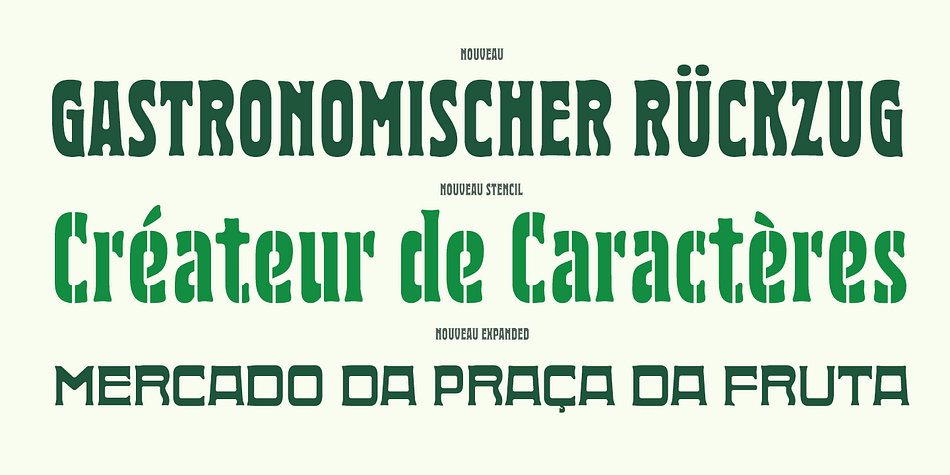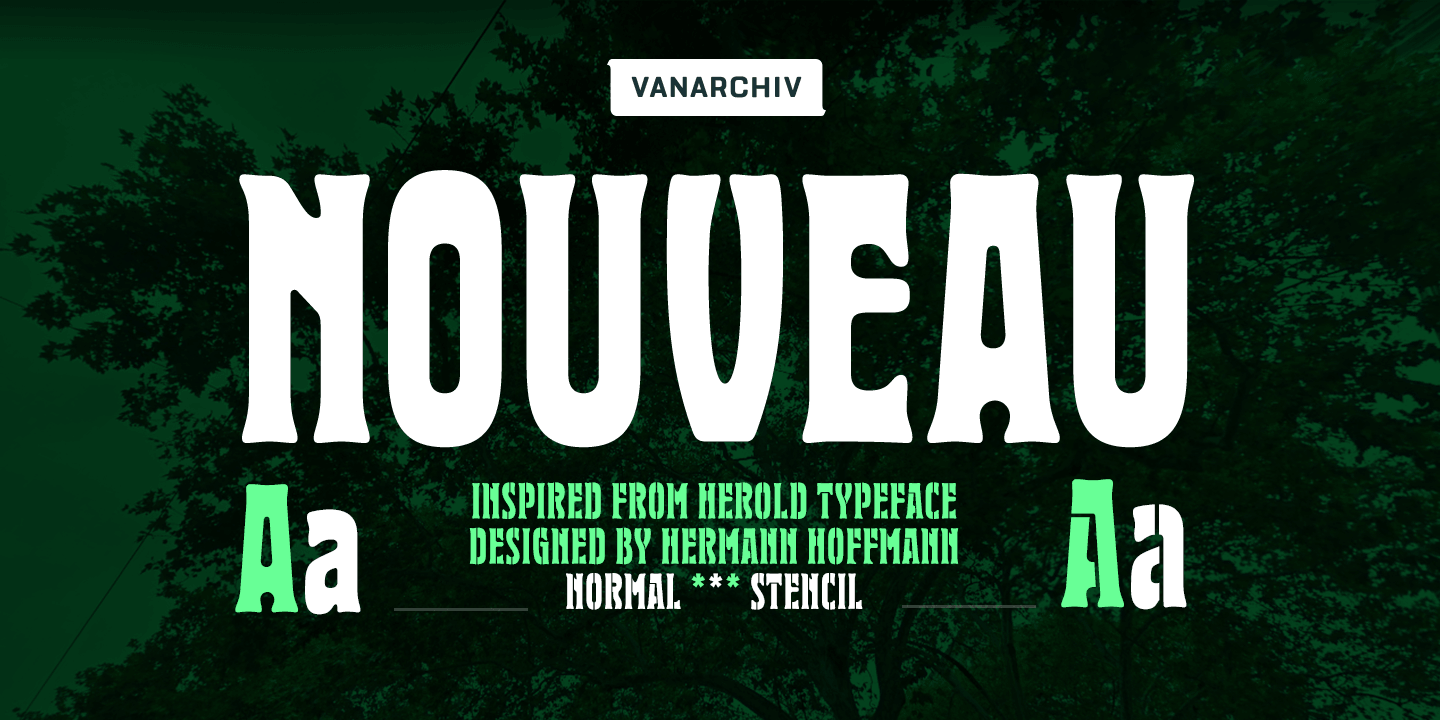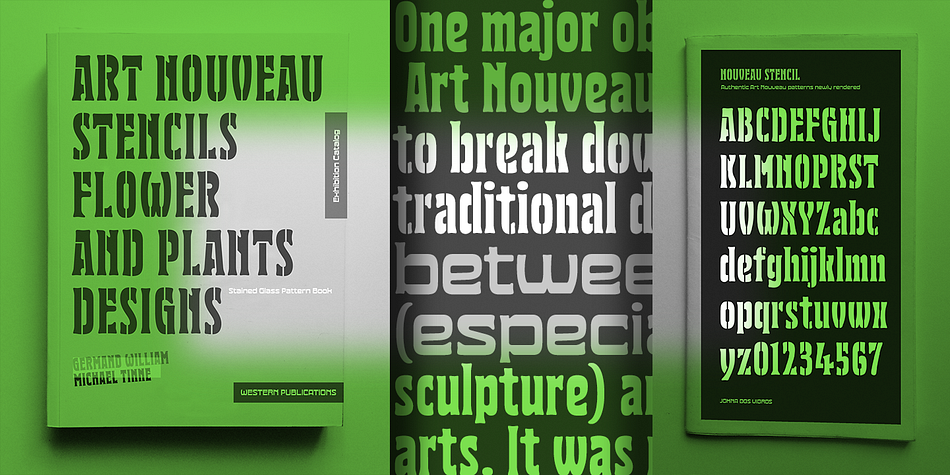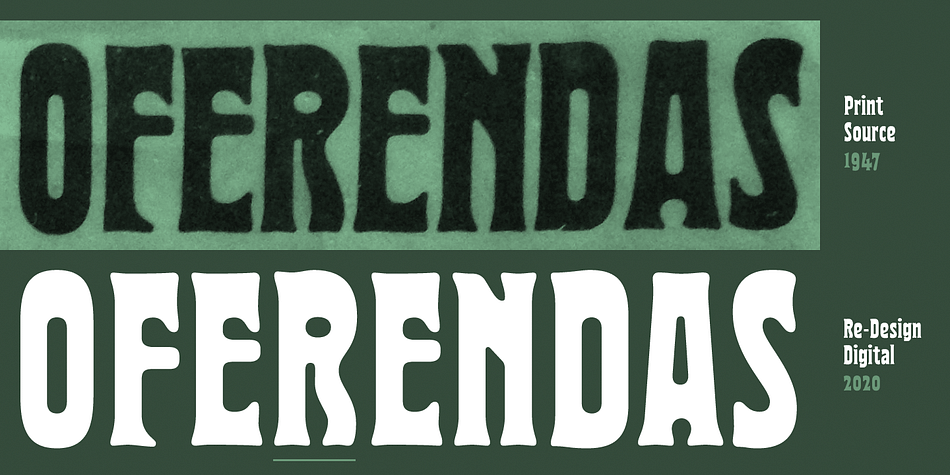
Designed by Ricardo Santos, Nouveau is an art nouveau and stencil font family. This typeface has three styles and was published by Vanarchiv.
The original design came from Berthold Herold typeface, designed by Hermann Hoffmann during 1913 (Art Nouveau style) in Germany. This project started from flyer printed during 1947 with movable type, the specimen was scanned as a source to development some of the uppercase letterforms. However the most unusual and tricky element from this sample is the leg from the uppercase (R) which is different from the original Herold design, until now I didn’t found where this version originally came from. This font family only contain the bold weight, but there are also a stencil and expanded versions available.
Designer | Ricardo Santos |